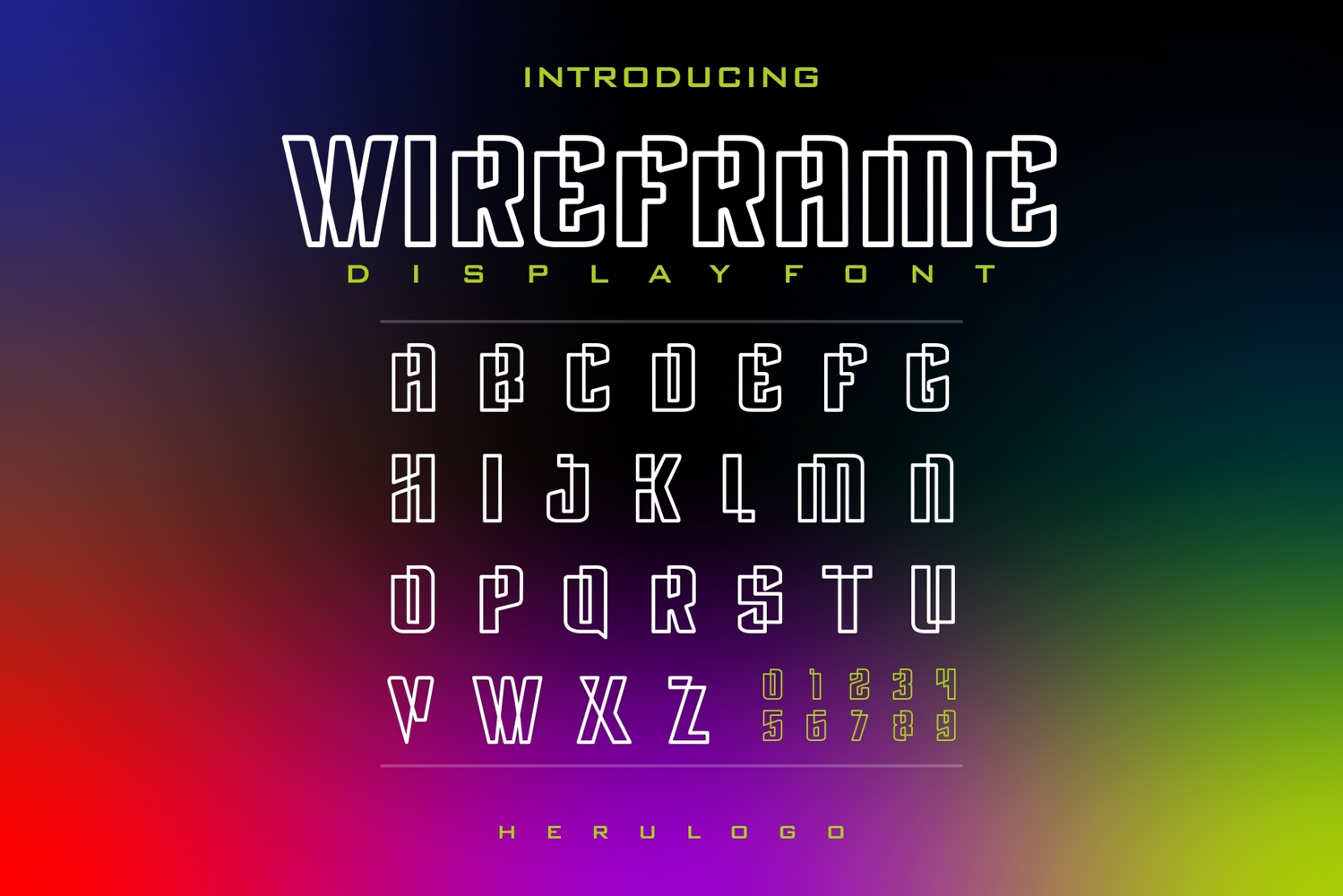
Wireframe
WireFrame
The "Wireframe" font is a striking display font that embodies a linear-geometric and industrial-futuristic aesthetic. True to its name, the typeface mimics the skeletal structure of 3D modeling, translated into a sophisticated 2D form. The use of overlapping outlines creates a unique illusion of transparency and structural depth.
Design Characteristics
• Monolinear Structure --> Consistent line weight throughout the characters provides a clean, technical, and balanced look.
• Interlocking Outlines --> The signature feature is the "wire" effect, where lines appear to cross and weave, resembling architectural blueprints or digital meshes.
• Rigid Geometry --> Built with sharp angles and precise forms, the font conveys a sense of stability, strength, and modern engineering.
• Display Optimization __> It is designed to be high-impact, making it most effective when used in uppercase for maximum visual clarity.